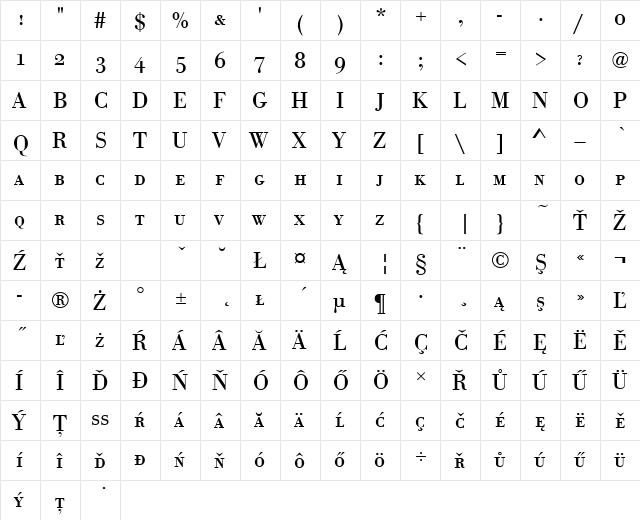
BodoniAntSCTEEReg Regular
Design Context for BodoniAntSCTEEReg Typeface
BodoniAntSCTEEReg offers clean, dependable letterforms without strong stylistic allegiance, making it a practical choice for designers who need flexibility.